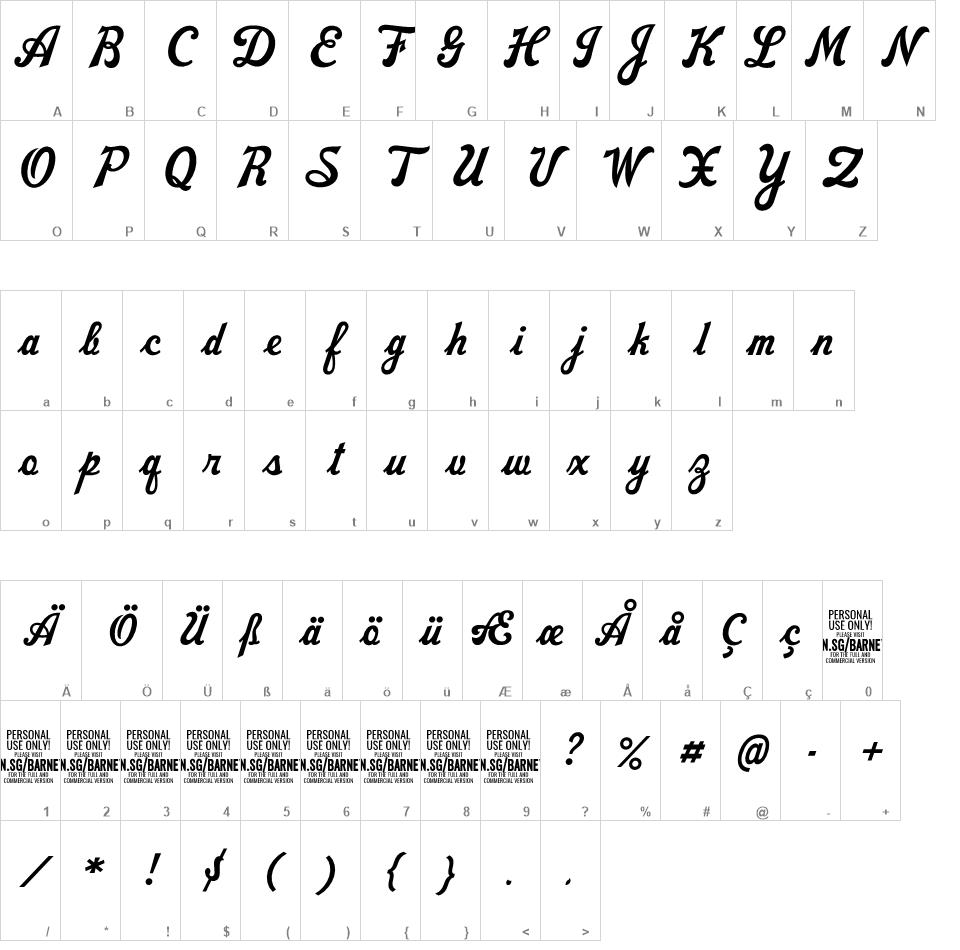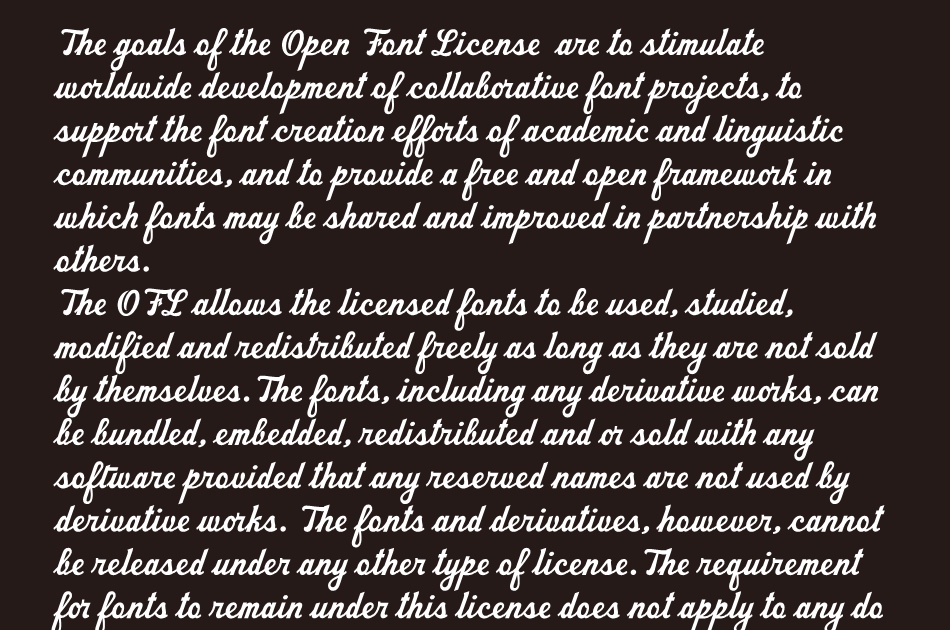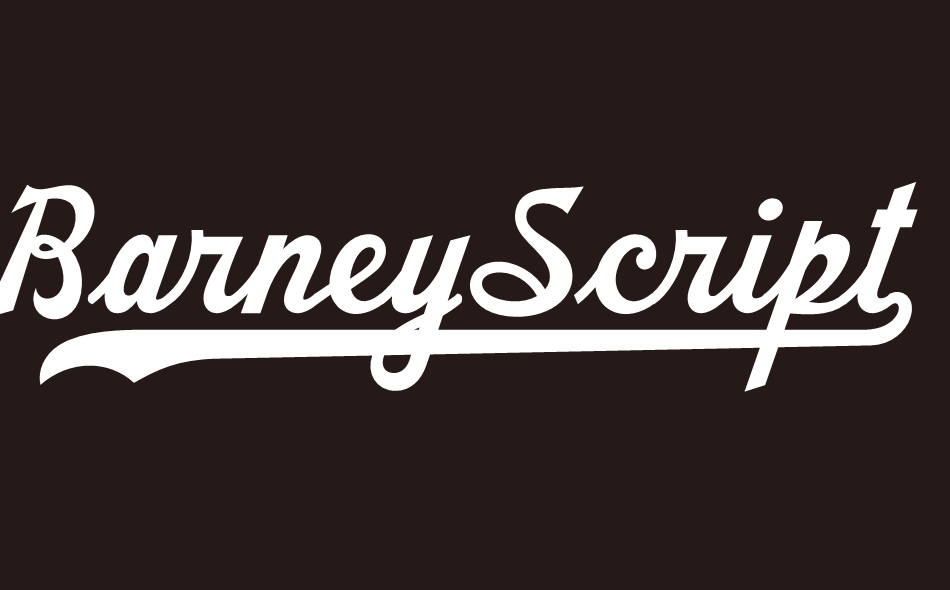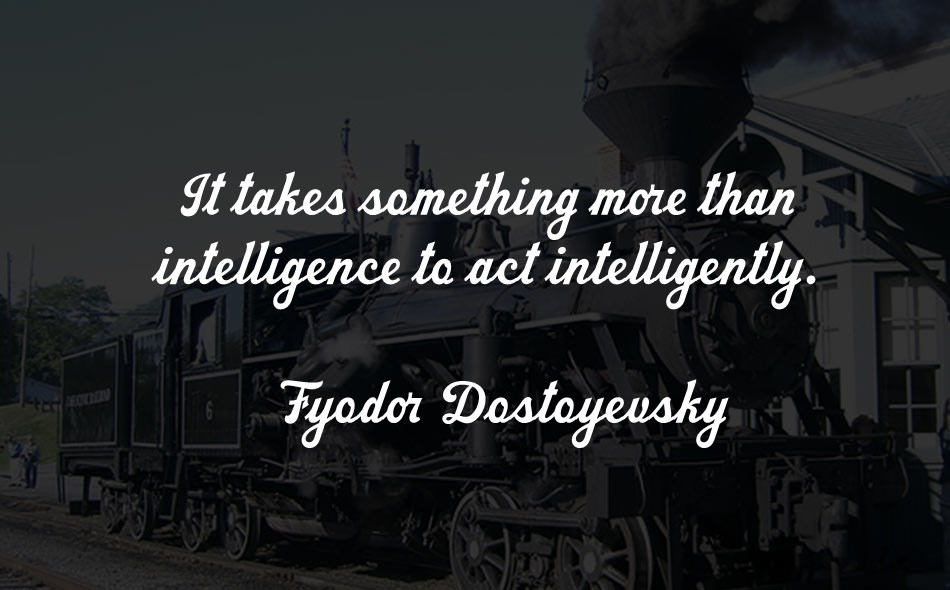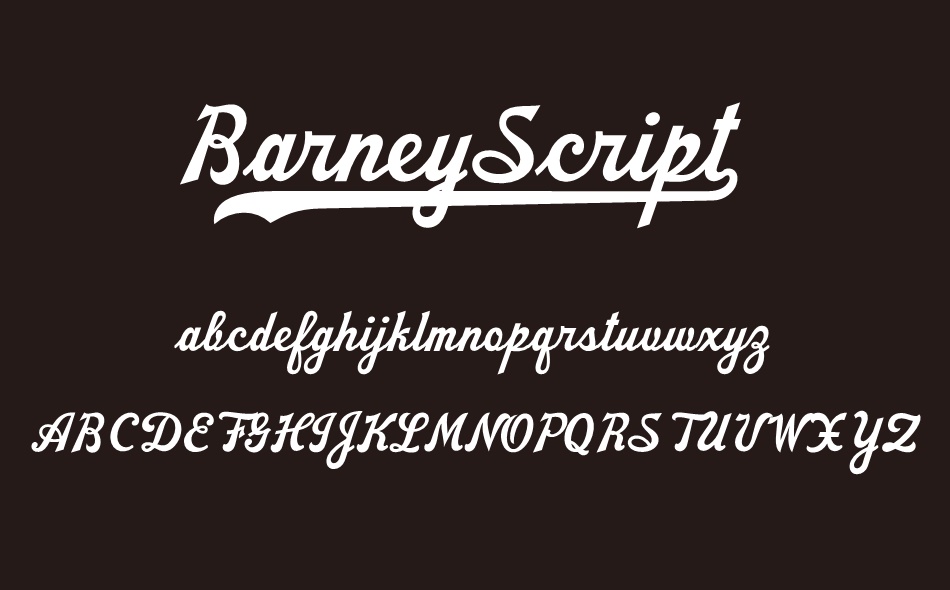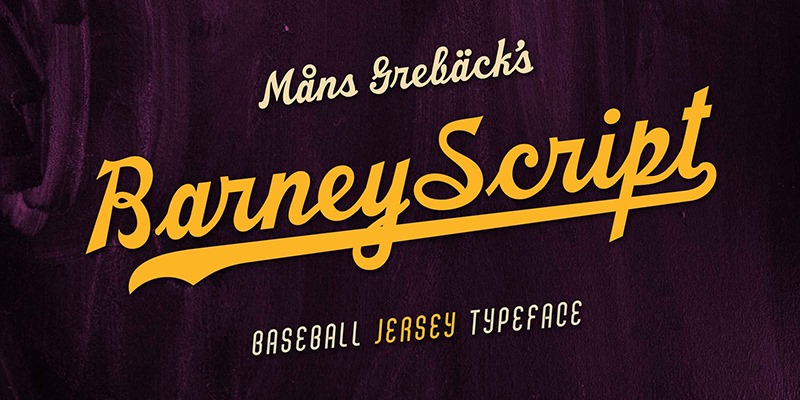
Barney Script font
Use underscore _ to make a swash.
Example: Letter_
Use multiple underscores to make longer swashes.
Example: Football____
Barney Script font
Barney Script is a cool baseball typeface.
A sporty calligraphy, this retro lettering will be your go-to style for a fresh team logotype or a vintage headline. Drawn and created by Mans Greback in 2022, it has a competitive style and a bold personality.
The Barney Script family consists of three professional styles: Regular, Bold and Rounded, complimenting each other for greater design opportunities.
Use underscore _ to make a swash. Example: Letter_ Use multiple underscores to make longer swashes. Example: Football____
The font is built with advanced OpenType functionality and has a guaranteed top-notch quality, containing stylistic and contextual alternates, ligatures and more features; all to give you full control and customizability. It has extensive lingual support, covering all Latin-based languages, from Northern Europe to South Africa, from America to South-East Asia. It contains all characters and symbols you'll ever need, including all punctuation and numbers.